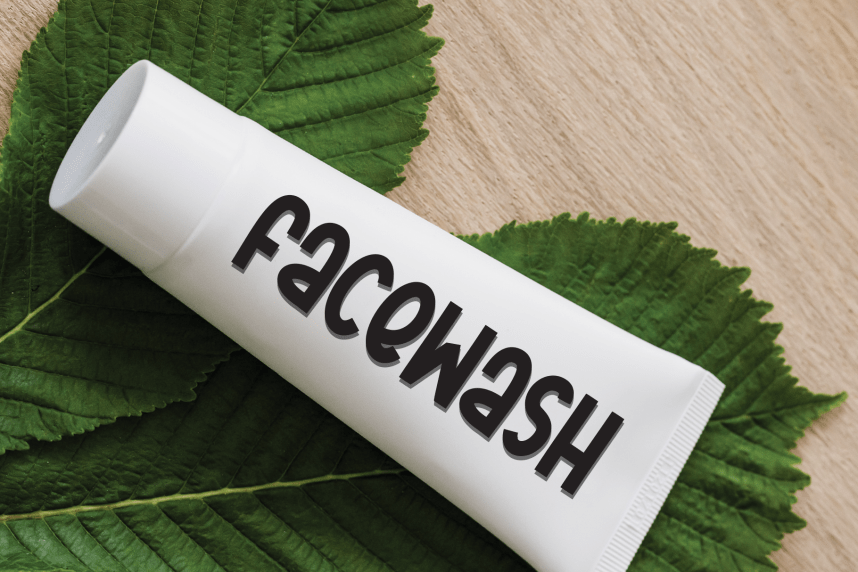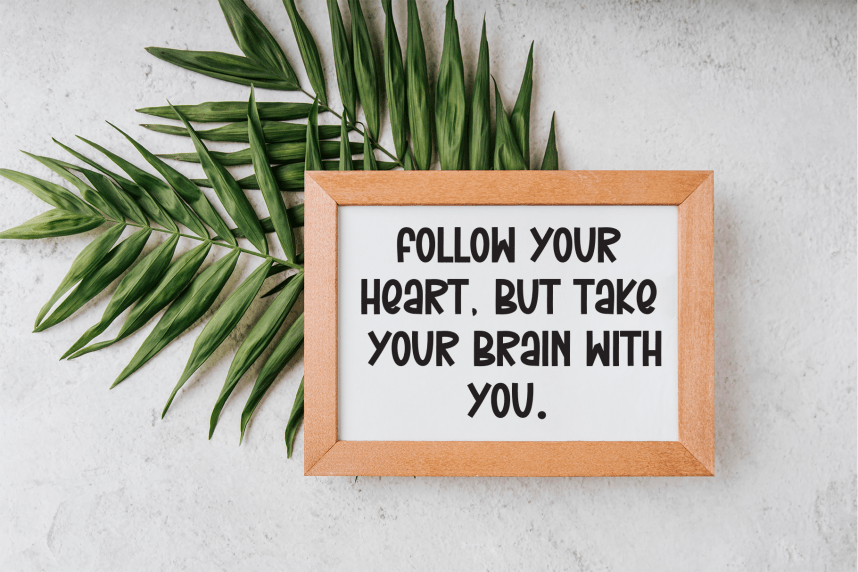
Retro Letter – New Style And Unique Font
Retro Letter – New Style And Unique Font is a sweet and friendly handwritten display font. Cute and fun, this font is ideal for writing wedding invitations, cards, or any other design that might need a playful touch!